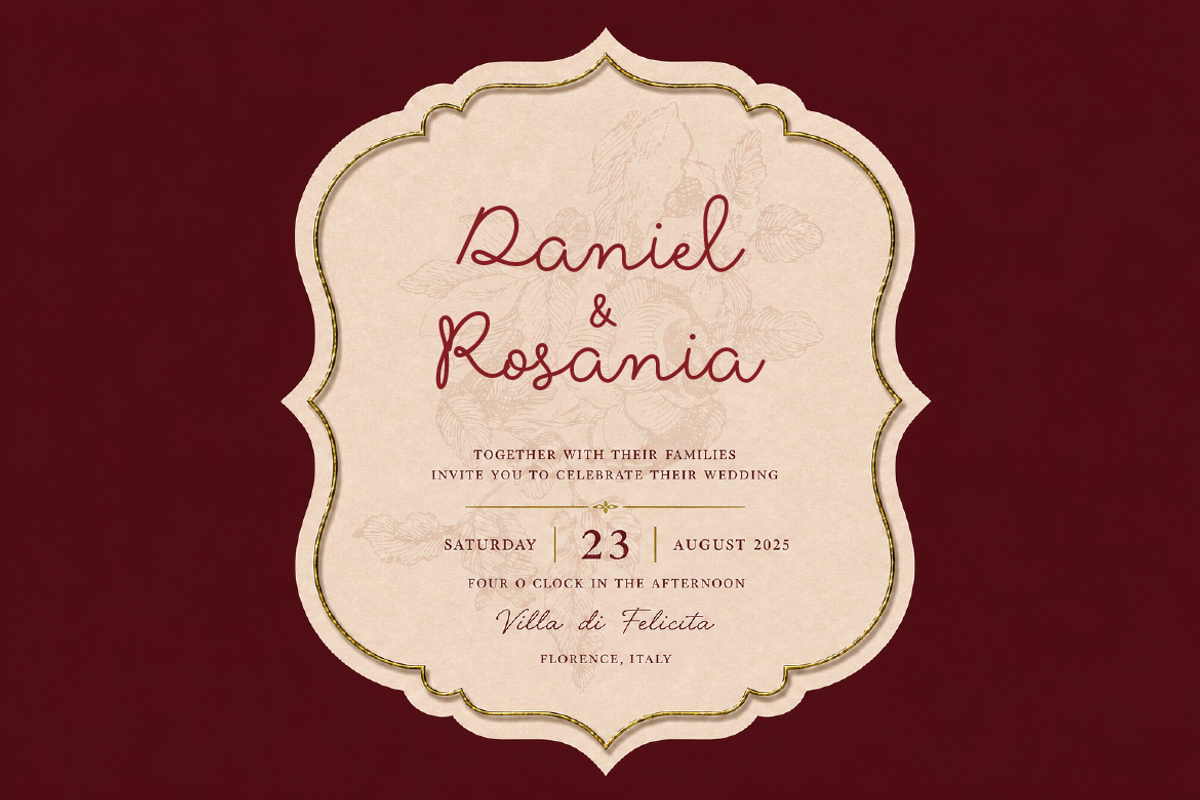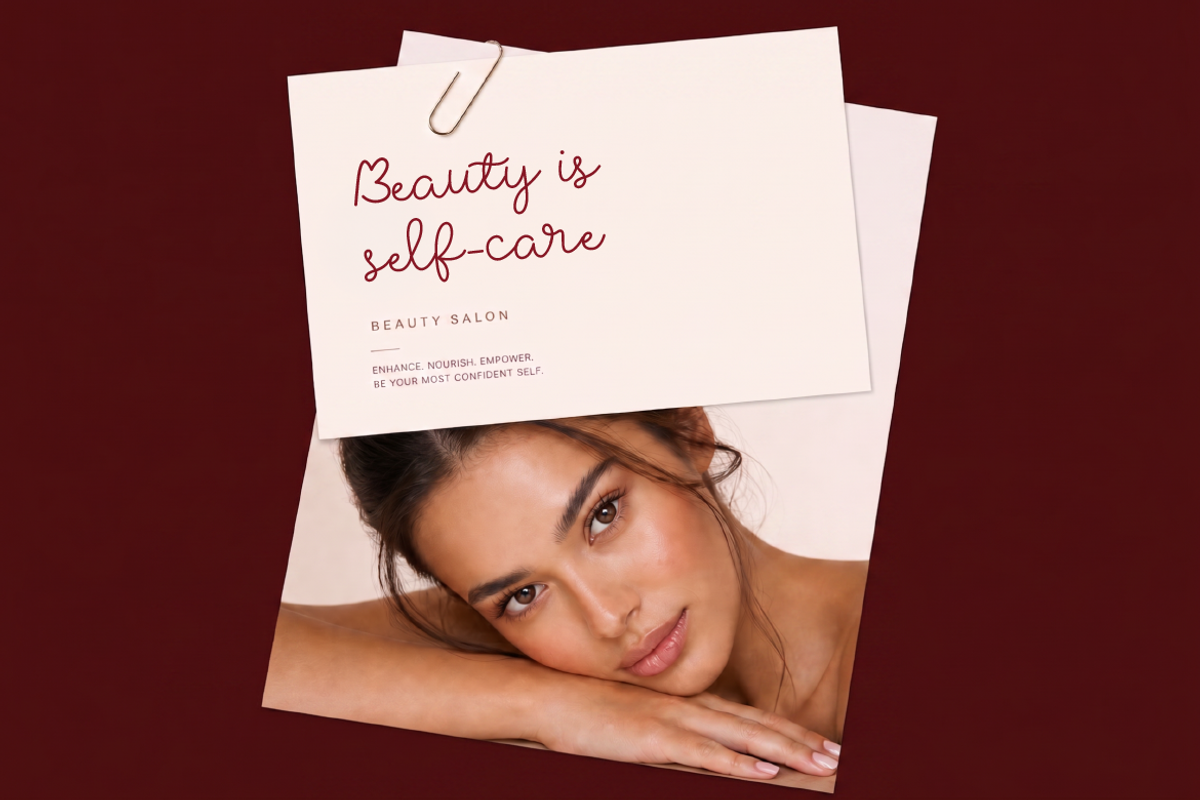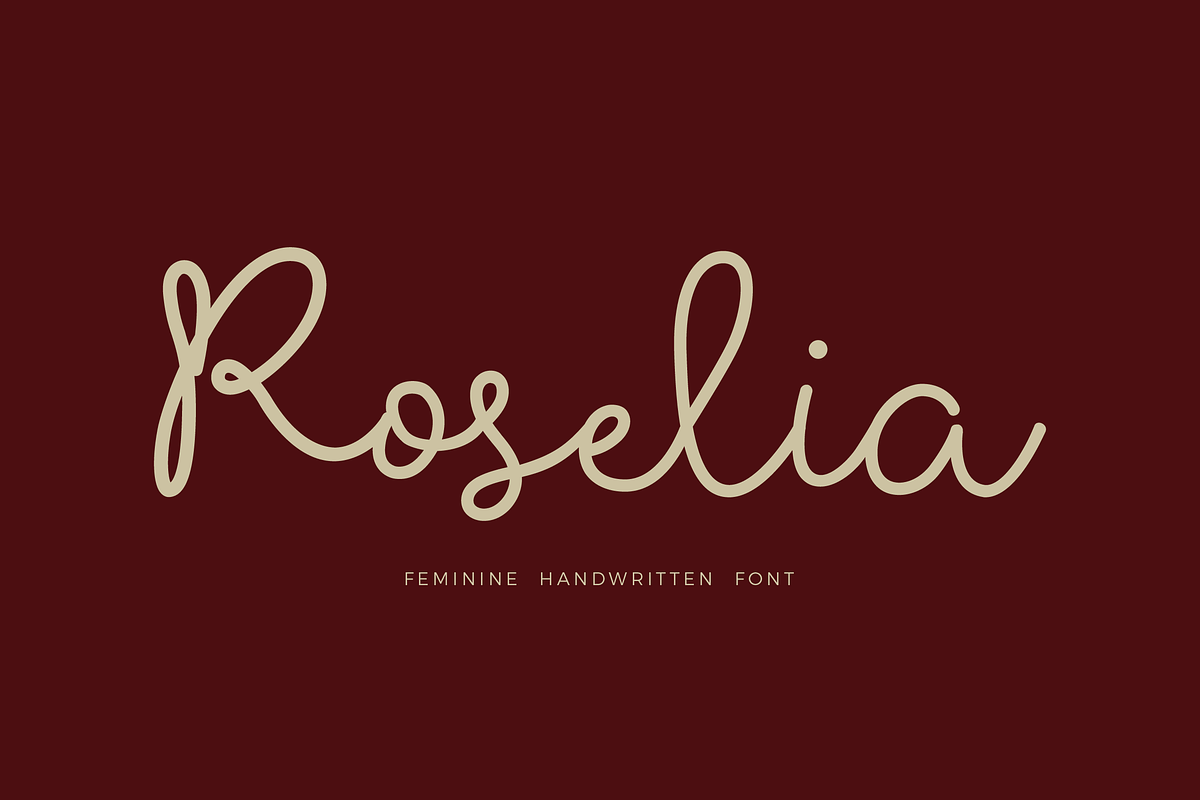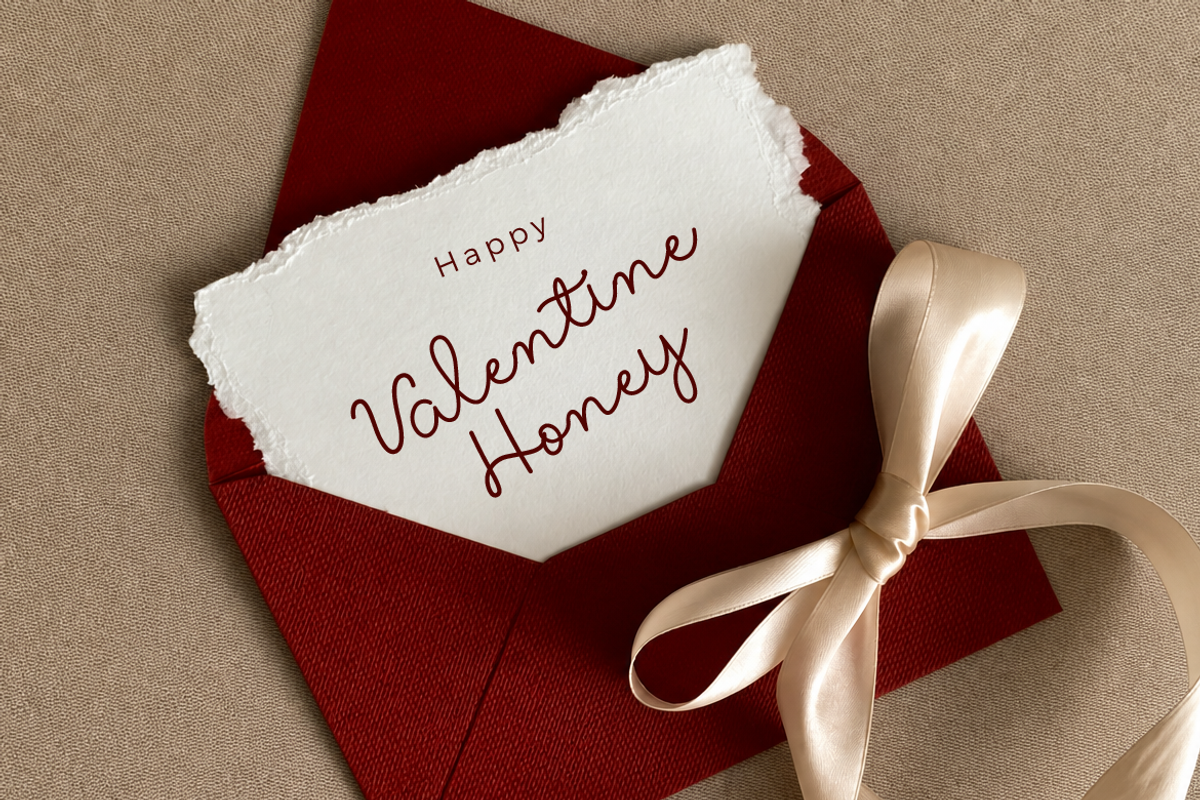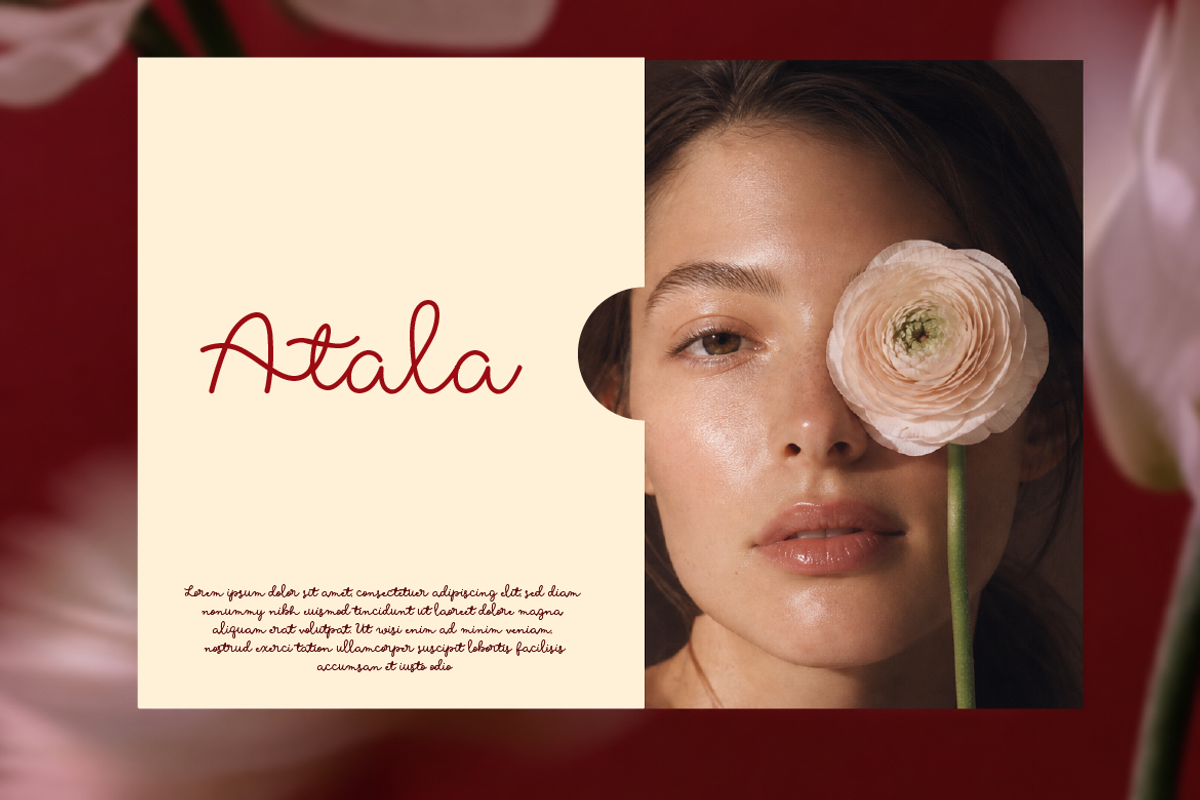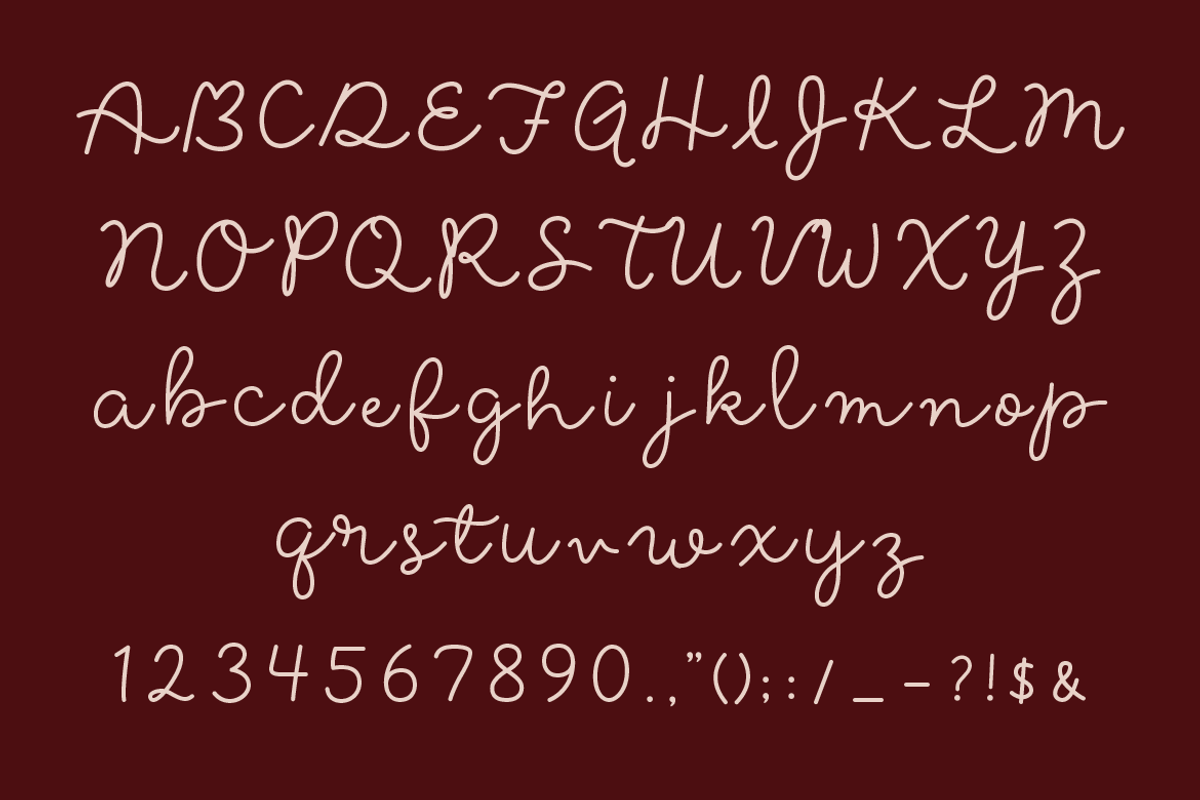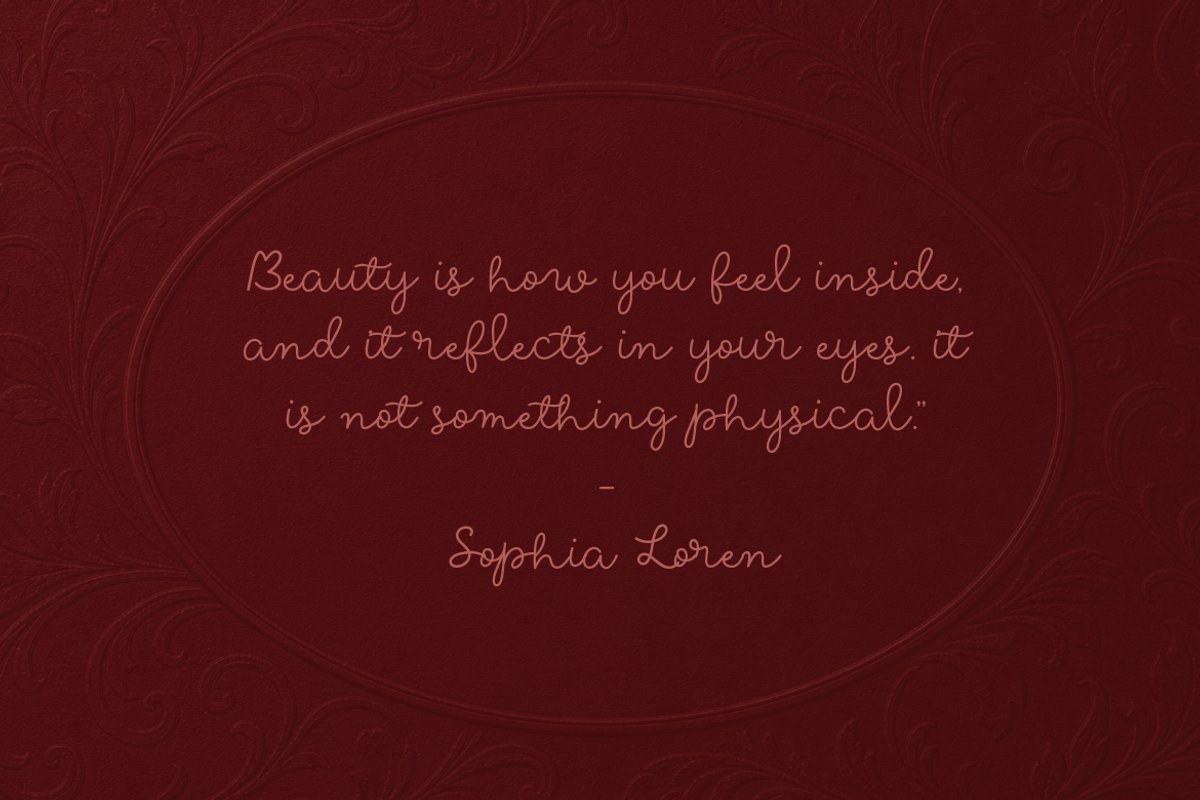
Roselia Elegant Signature Font
Roselia is a feminine handwritten script font designed with elegant flowing strokes and a soft romantic personality. Featuring smooth curves and natural handwritten movement, this font brings a graceful and luxurious feel to every design project.
Its clean and delicate letterforms make Roselia perfect for wedding invitations, beauty branding, feminine logos, fashion editorials, and elegant social media content. Carefully crafted to feel personal, stylish, and timeless, this font is ideal for designers looking to create sophisticated and emotional visual experiences.
Whether you are designing luxury packaging, romantic stationery, or modern feminine branding, Roselia adds a beautiful handwritten touch that feels both classy and approachable.
Perfect for :
Wedding invitations
Beauty & cosmetic branding
Feminine logos
Fashion branding
Greeting cards
Social media quotes
Elegant packaging
Signature branding
Valentine designs
Luxury stationery